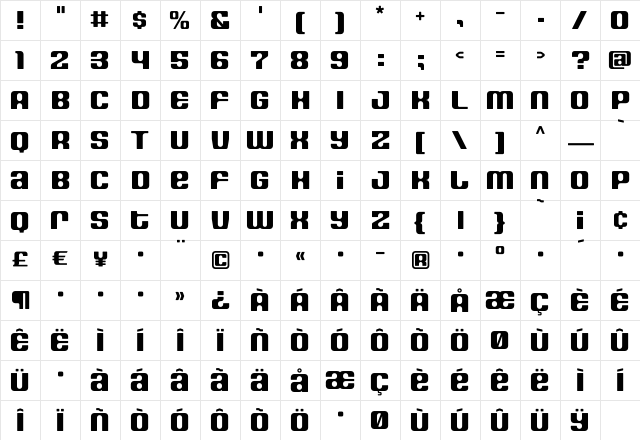
HouseSampler-SpaceageRound Regular
| Designer | House Industries |
Design Context for HouseSampler-SpaceageRound Typeface
HouseSampler-SpaceageRound uses gentle rounded endings to create a warm, inviting typographic personality — less corporate than geometric sans, more refined than playful display fonts.
Well-suited to UI design, mobile interfaces, and any brand that wants approachability without sacrificing clarity.
Font Pairing: Pairs well with a rounded or humanist sans for body copy, maintaining the friendly tone without relying on HouseSampler-SpaceageRound to carry extended reading.
Pro Tip: Use HouseSampler-SpaceageRound for UI elements, app interfaces, and anywhere a friendly, approachable tone needs to be maintained without sacrificing clarity.